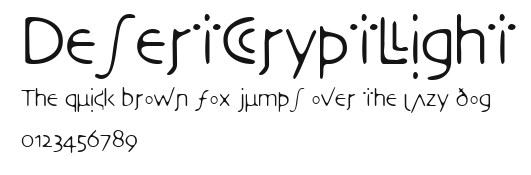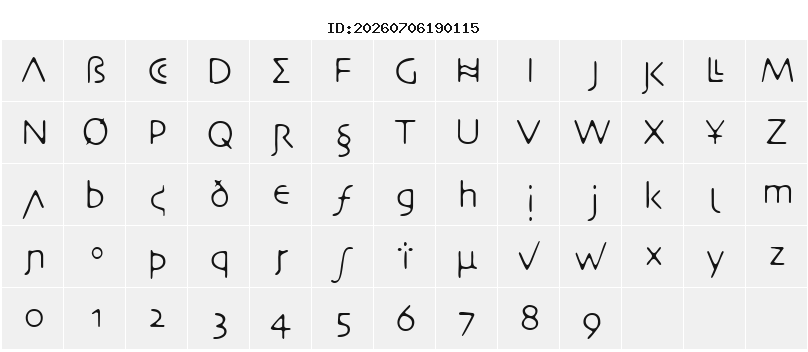
DesertCryptLight.ttf is a modern, elegant sans-serif font designed for ultimate readability and visual harmony. Perfect for branding, headlines, web design, and print materials.